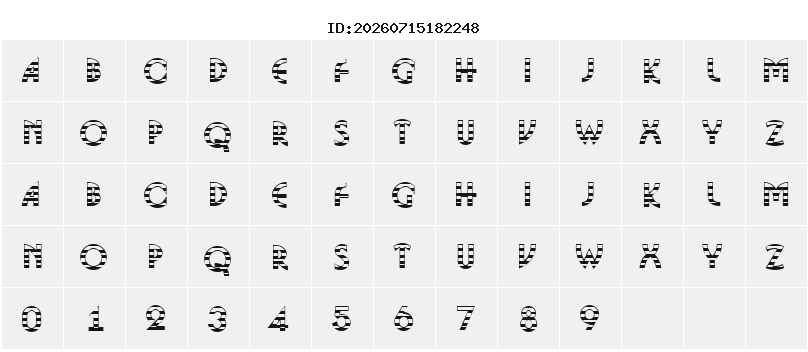
a_BosaNovaGdStr Preview
• Font Name: a_BosaNovaGdStr
• Font ID: a_BosaNovaGdStr Bold
• Full Font Name: a_BosaNovaGdStr Bold
• PostScript Name: a_BosaNovaGdStr-Bold
About a_BosaNovaGdStr.ttf
a_BosaNovaGdStr.ttf is a modern, elegant sans-serif font designed for ultimate readability and visual harmony. Perfect for branding, headlines, web design, and print materials.